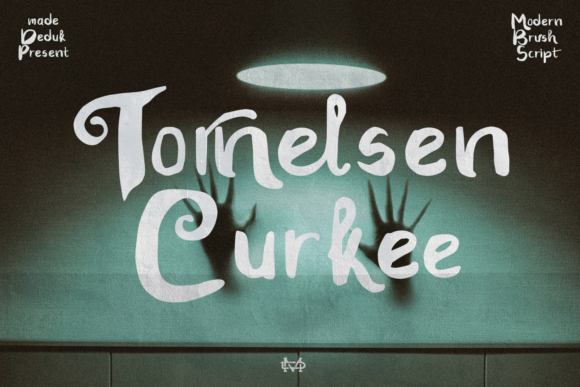
**Tornelsen Curkee: Your Creative Impulse's Personal Calligrapher**
Unleash the captivating allure of Tornelsen Curkee, a brush script font that dances across your designs with an unrivaled charm. Its strokes, as smooth as a gentle breeze, evoke the elegance of traditional calligraphy while embracing the vibrancy of modern aesthetics. With Tornelsen Curkee as your creative accomplice, every letter transforms into an artwork, narrating a tale of sophistication and artistry.
**A Font Crafted for Distinction**
Experience the allure of a script that elevates your designs beyond the ordinary. Tornelsen Curkee's meticulously crafted characters possess a unique charm, adding a touch of elegance to your invitations, social media posts, flyers, and scrapbooking projects. Its versatility knows no bounds, effortlessly enhancing a wide array of creative endeavors.
**Script That Empowers Your Expression**
Tornelsen Curkee is more than just a font; it's an artistic muse that empowers your creative expression. Its effortless flow invites you to dance with words, turning mundane designs into captivating masterpieces. Watch as your logotypes, branding, and headlines transform into works of art, exuding a personality that speaks volumes.
**Embrace the Beauty of Brush Strokes**
Immerse yourself in the enchanting world of brush strokes with Tornelsen Curkee. Its realistic textures and fluid movements bring a touch of authenticity to your designs, bridging the gap between the digital and the tangible. Prepare to be captivated as the strokes intertwine, creating a visual symphony that captivates your audience's hearts.
**Tornelsen Curkee: A Timeless Treasure**
Tornelsen Curkee stands as a timeless treasure in the realm of script fonts. Its timeless appeal transcends fleeting trends, ensuring that your designs remain captivating and alluring for years to come. Embrace the beauty of a font that defies the boundaries of time, becoming a cherished part of your creative arsenal.